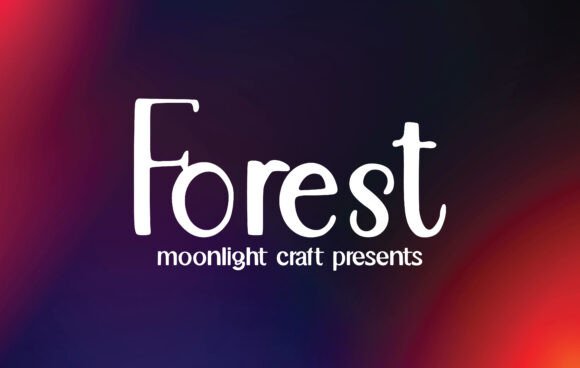
Discover the Beauty of Forest Font: Elevate Your Designs with this Lovely Handwritten Font
Are you a designer or crafter looking for a unique and captivating font to take your creative projects to the next level? Look no further than Forest Font, a stunning handwritten font that is sure to impress. With its elegant and flowing script, Forest Font has the potential to elevate your designs, making them stand out from the crowd.
What Makes Forest Font So Special?
Forest Font is a beautifully crafted handwritten font that boasts a range of characteristics that make it perfect for a variety of design applications. Here are just a few reasons why Forest Font is a cut above the rest:
- Unique and Eye-Catching: Forest Font features a distinctive and stylish script that is sure to grab attention. Its elegant and flowing letters make it perfect for creating eye-catching logos, branding, and quotes.
- Versatile: Forest Font is incredibly versatile, making it suitable for a wide range of design projects, from stationery and packaging to advertising and digital media.
- Easy to Read: Despite its ornate and decorative nature, Forest Font is surprisingly easy to read, making it perfect for use in both digital and print applications.
- Highly Legible: The font’s clear and consistent letterforms ensure that it remains highly legible, even at smaller sizes.
Forest Font is an ideal choice for designers and crafters looking to add a touch of elegance and sophistication to their work. Whether you’re creating:
- Logos: Forest Font’s unique and eye-catching script makes it perfect for creating memorable and impactful logos that will help your brand stand out.
- Branding: Use Forest Font to create a cohesive and stylish brand identity that will help you connect with your target audience.
- Quotes and Posters: Forest Font’s elegant and flowing script is perfect for creating inspiring and motivational quotes, as well as stunning posters and flyers.
Tips for Using Forest Font Effectively
To get the most out of Forest Font, here are a few tips to keep in mind:
- Use it Sparingly: Forest Font is a bold and eye-catching font, so use it sparingly to avoid overwhelming your design.
- Pair it with Other Fonts: Forest Font pairs beautifully with other fonts, so don’t be afraid to experiment with different combinations to find the perfect look for your design.
- Experiment with Colors: Forest Font looks stunning in a range of colors, so don’t be afraid to experiment and find the perfect hue to match your brand or design.